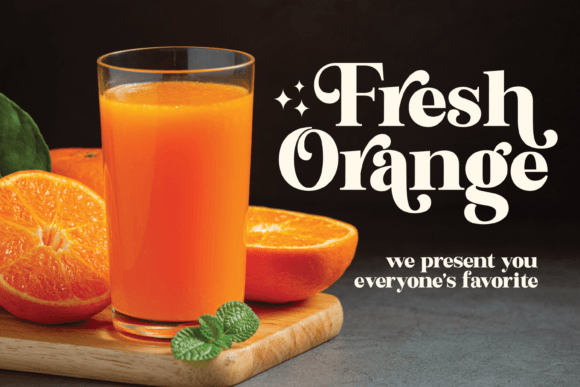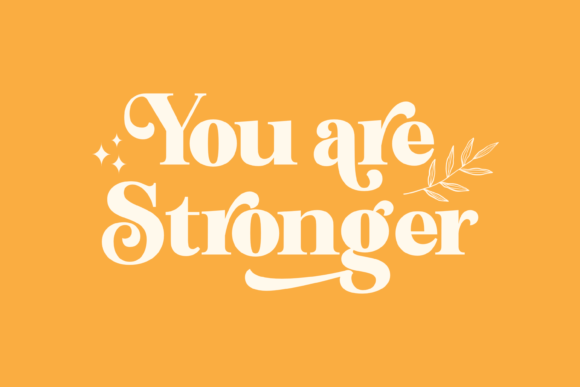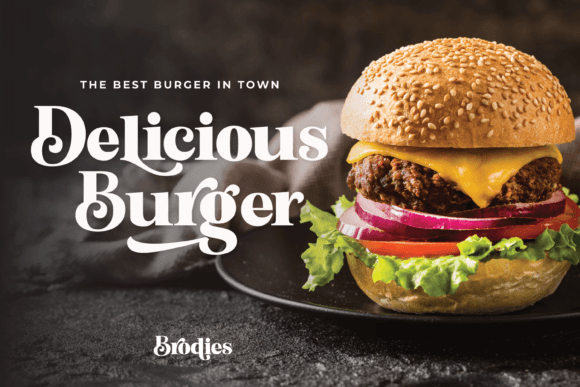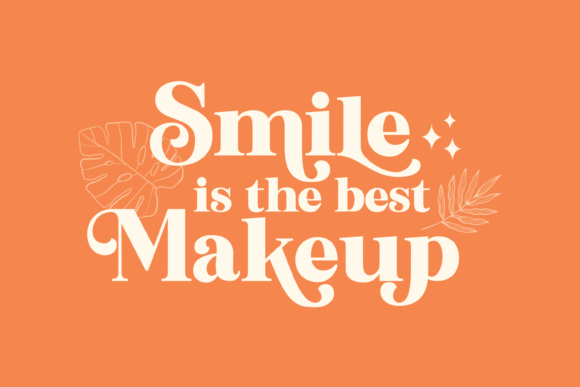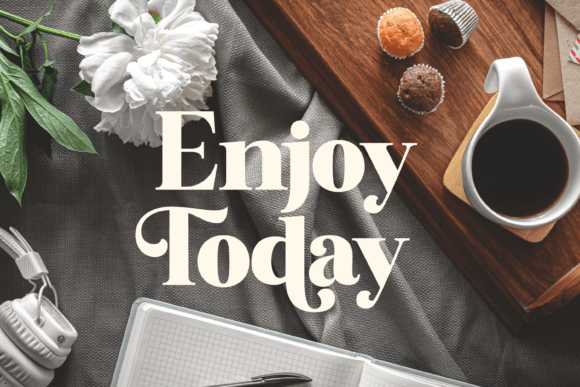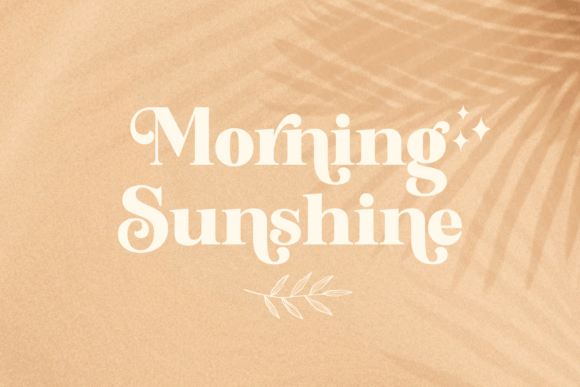
The Perfect Font for a Brighter Design
You know that feeling when you stumble upon a font that just clicks? For designers, it’s like finding a long-lost treasure that elevates our work to the next level. That’s exactly what happened when we discovered Brodies Font – a modern display font that radiates positivity and energy.
Brodies Font is a game-changer for designers looking to create eye-catching headlines, magazines, and logotypes. Its clean forms and playful, curly letter ends create a friendly atmosphere that’s perfect for food packages, advertising, and more. Whether you’re working on a project that requires a modern twist or a dash of whimsy, Brodies Font is sure to deliver.
What sets Brodies Font apart is its versatility and ability to add a personal touch to any design. With its bright and cheerful vibe, it’s the perfect tool for designers who want to make a lasting impression.
Brodies Font Key Features
- Unique Characteristics: Brodie Font features a unique blend of modern and traditional elements, with a distinctive flair that sets it apart from other fonts in its category.
- Kerning and Ligatures: The font includes advanced kerning and ligature features, ensuring that text sets are visually appealing and professional-looking.
Brodies Font Review
I recently had the chance to work with the Brodie’s font, and I must say it’s a mixed bag. Let’s start with what works well. ✨
- Unique Character**: Brodie’s font has a distinct, hand-drawn feel that sets it apart from more common sans-serif fonts.
- Legibility**: Despite its quirks, Brodie’s font is surprisingly easy to read, especially at larger font sizes.
- Style Versatility**: This font works well in a variety of contexts, from modern websites to traditional print materials.
However, there are some limitations that might make it less suitable for certain projects. ⚠️
- Font Size Limitations**: At smaller font sizes, Brodie’s font can become difficult to read due to its irregularities.
- Letterform Consistency**: While the overall feel is cohesive, there are some inconsistencies in letterform design that might be distracting to some users.
- Lack of Bold Weights**: The font family is limited to a single bold weight, which can make it difficult to create emphasis or hierarchy in text.
Overall, I think Brodie’s font is a solid choice for projects where a unique, handmade feel is desired. However, it may not be the best fit for projects that require precise control over font sizes or weights.
Getting the Most Out of Brodies Font
Here are some tips for getting the most out of Brodies Font:
- Use it for headings and titles to add a touch of elegance and sophistication.
- Pair it with other fonts to create a unique and eye-catching typography.
- Experiment with different font sizes and styles to add emphasis and hierarchy to